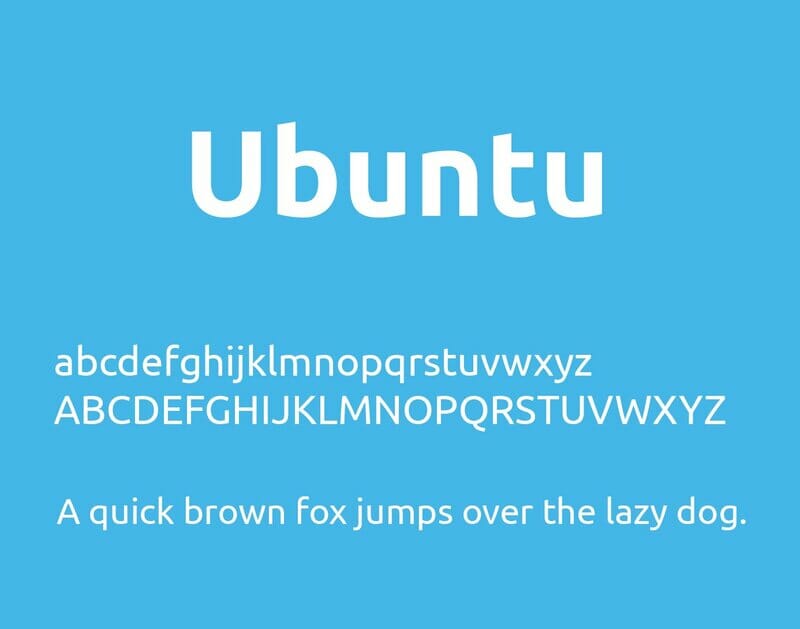
Ubuntu Font
Ubuntu Font is a sans-serif typeface family that was designed to be both beautiful and functional. It is inspired by the Ubuntu philosophy of “humanity to others,” and it is designed to be easy to read and use by everyone.
Ubuntu Font is a humanist sans-serif, which means that it has a rounded, friendly appearance. It is also very legible, even at small sizes. This makes it a great choice for use in web pages, documents, and other applications where readability is important.